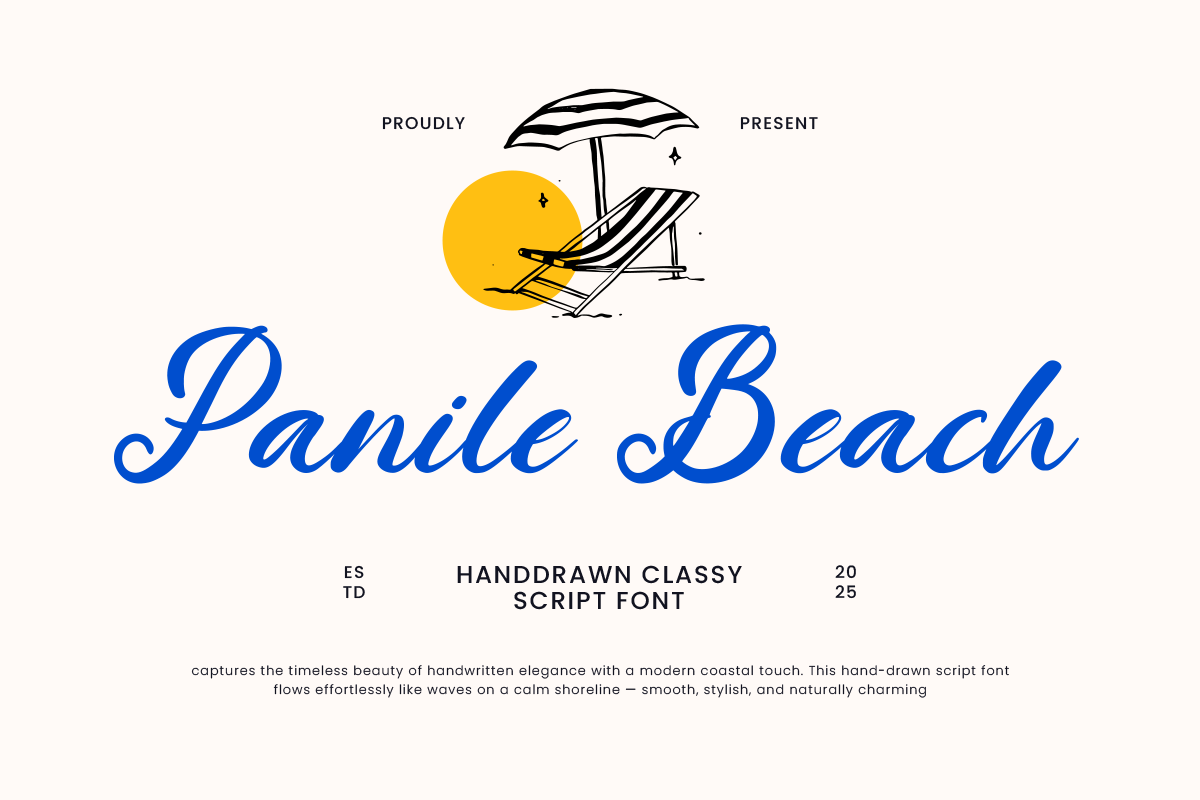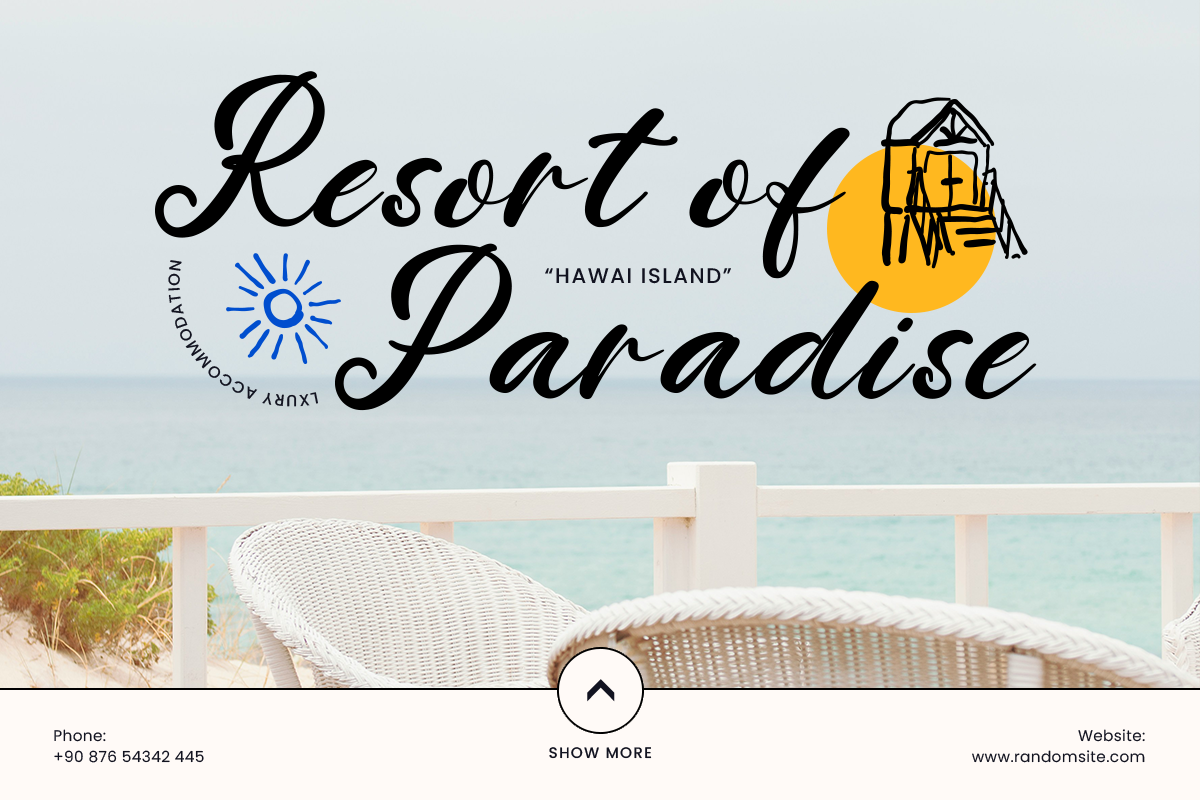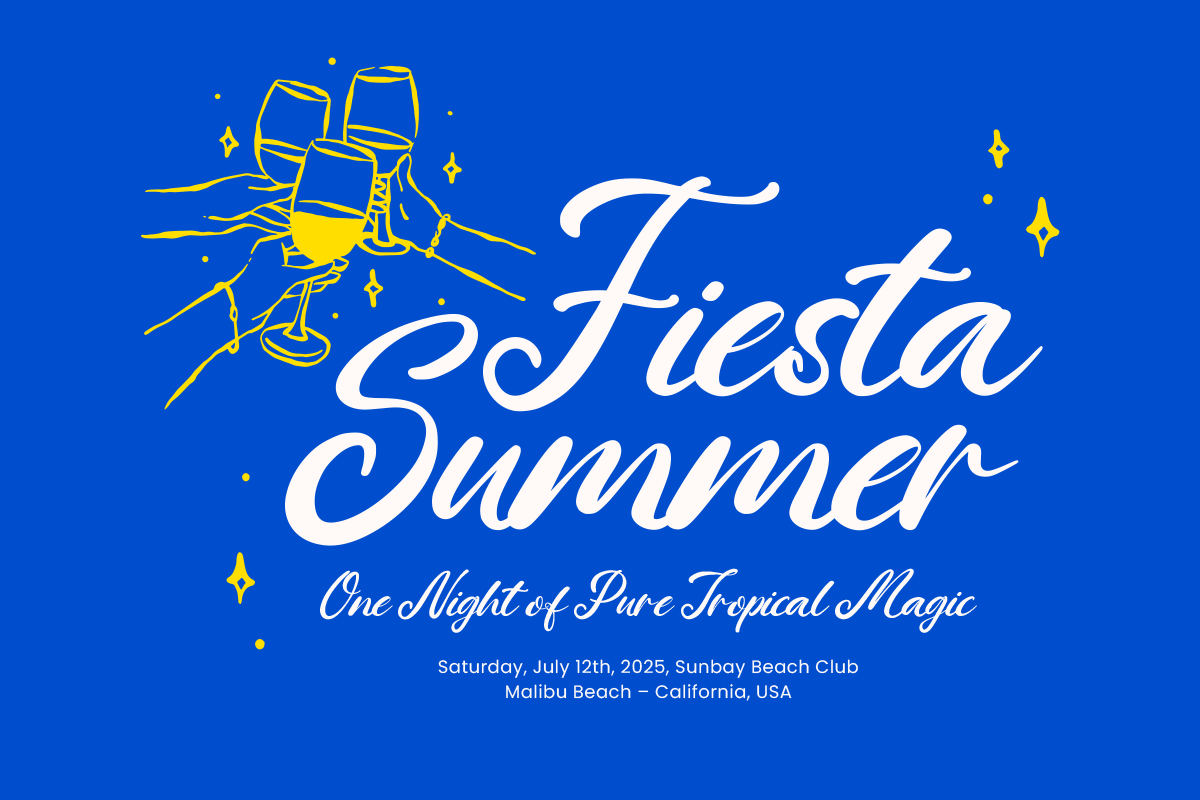
Whether you're designing branding for cafés, boutique businesses, beauty products, wedding stationery, packaging, social media content, logos, or lifestyle brands, Panile Beach delivers a polished look with a handcrafted touch. Its balanced shapes and smooth connections make it equally suitable for premium projects and creative designs that need warmth, charm, and visual character.
Panile Beach Swash & Ligature Features